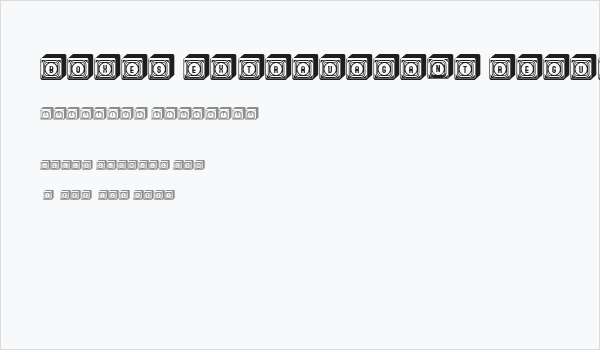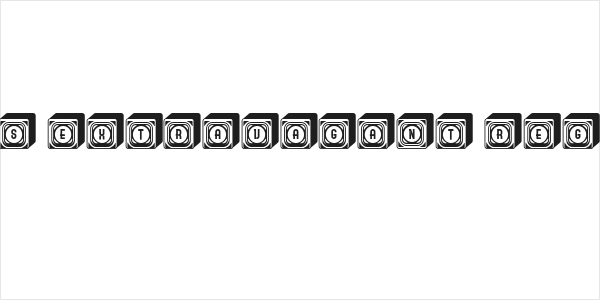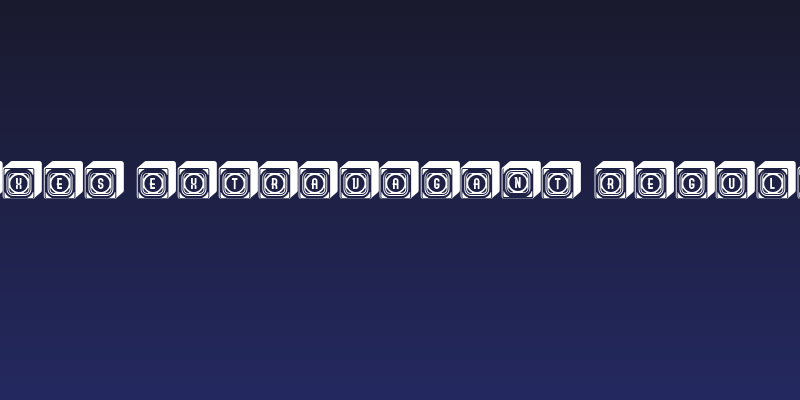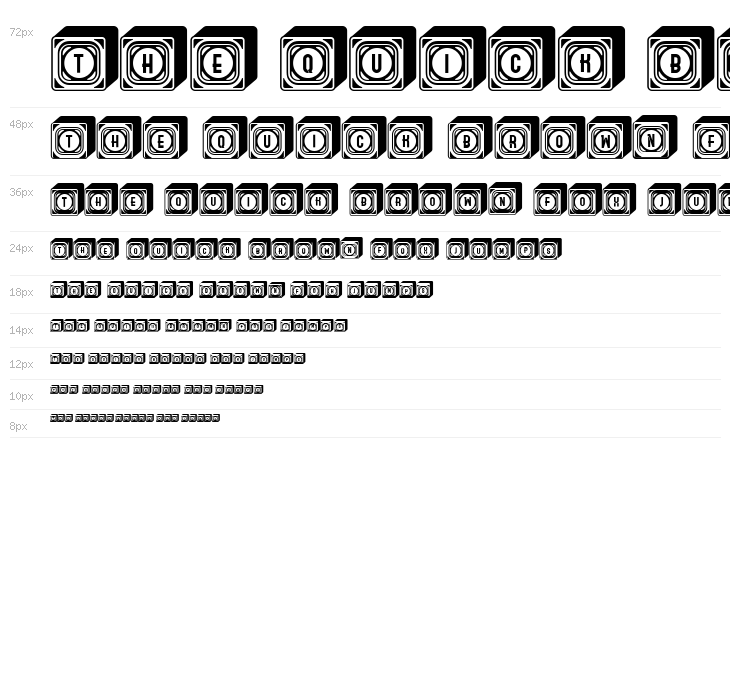
Boxes Extravagant Regular Font
Boxes Extravagant Regular Description
This font features a unique and extravagant design where each character is enclosed within a three-dimensional box, creating a striking visual effect. The letters are bold and uppercase, with a consistent geometric style that emphasizes symmetry and structure. The font's design is both playful and sophisticated, making it ideal for creative projects that require a standout typeface. The characters are evenly spaced within their boxes, ensuring readability while maintaining the decorative appeal. This font is perfect for projects that aim to capture attention and convey a sense of modernity and innovation.
| Proposed Projects | Ideal for branding, posters, album covers, and any project needing a bold, eye-catching typeface. |